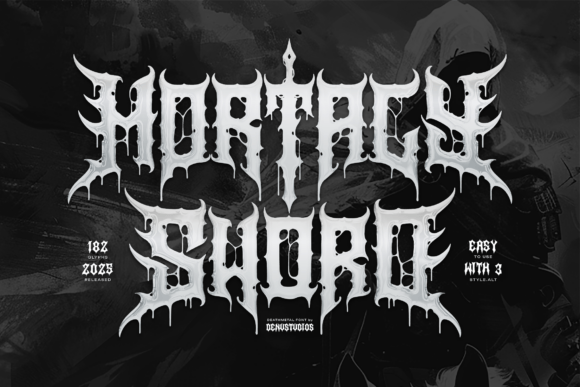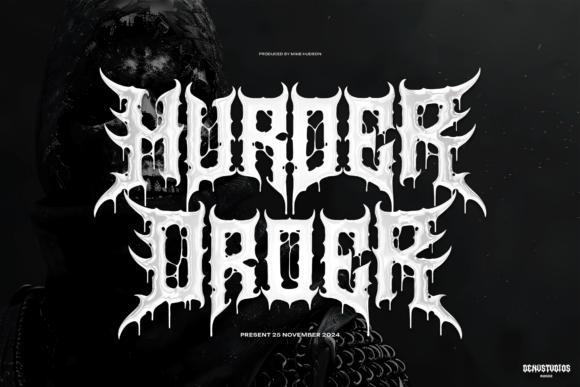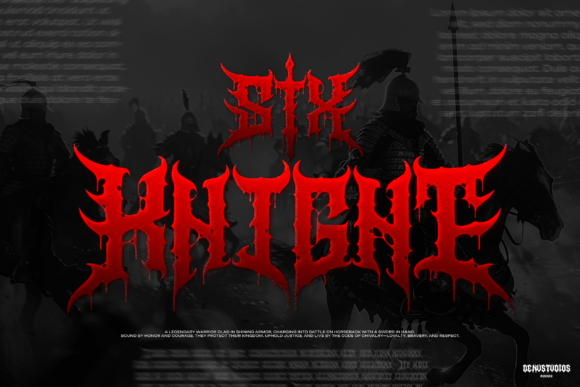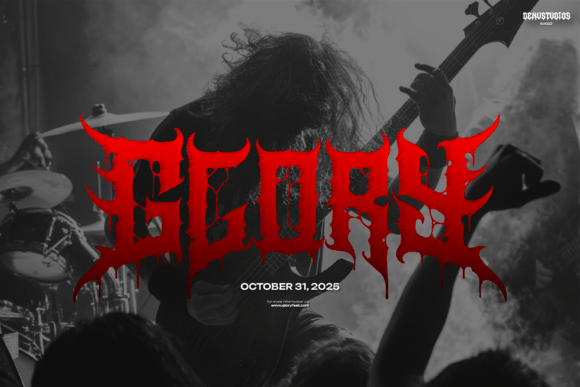
Mortaly Sword Font
About the Mortaly Sword Font
The wait is over! The incredible Mortaly Sword Font is now available for your design toolkit. Mortage Sword is a brutal and electrifying death metal font, forged with fierce spikes and molten drips that scream raw power. With 182 glyphs and 3 alternate styles, it’s perfect for band logos, metal album covers, dark-themed branding, and extreme poster designs. This font commands attention with its razor-sharp attitude.
Mortaly Sword excels in large-scale applications demanding high impact, such as headlines, logos, and posters for metal bands, gaming, or other projects with a dark, aggressive aesthetic. Its strong character makes it unsuitable for body text or UI elements where readability is paramount; the intricate details would be lost at smaller sizes and hinder usability.
For optimal visual balance, pair Mortaly Sword with clean sans-serif fonts like Bebas Neue for a stark contrast, or a more geometric sans-serif like Montserrat for a slightly softer yet modern feel. Consider a contrasting script font like Pacifico for a unique yet balanced look in specific applications, such as a band name alongside a more detailed graphic.
The font’s overall personality is aggressive and rebellious, conveying power and intensity. It is best suited for brands and projects that want to project an uncompromising and edgy image.
Mortaly Sword Font Usage Examples
Mortaly Sword Font Example